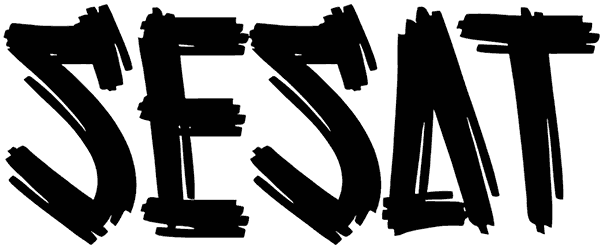
Sesat Font
If you are looking for a modern-looking script font that carries a sense of jauntiness, grunge, disorder, and vivacity, we offer you to pick up a trash font such as Sesat to fulfill your goals. Despite the undeniable fact that this all-caps 80s brush font doesn’t fully support numbers, it still can be included in street posters, digital banners, graffiti, and video game brochures.